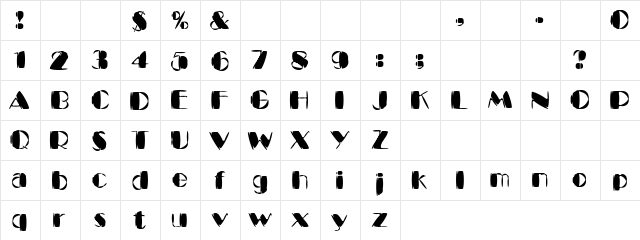
Kaptain Kurk Regular
Design Context for Kaptain Kurk Typeface
Kaptain Kurk is a composed and adaptable typeface that performs quietly and consistently across a wide range of design contexts.